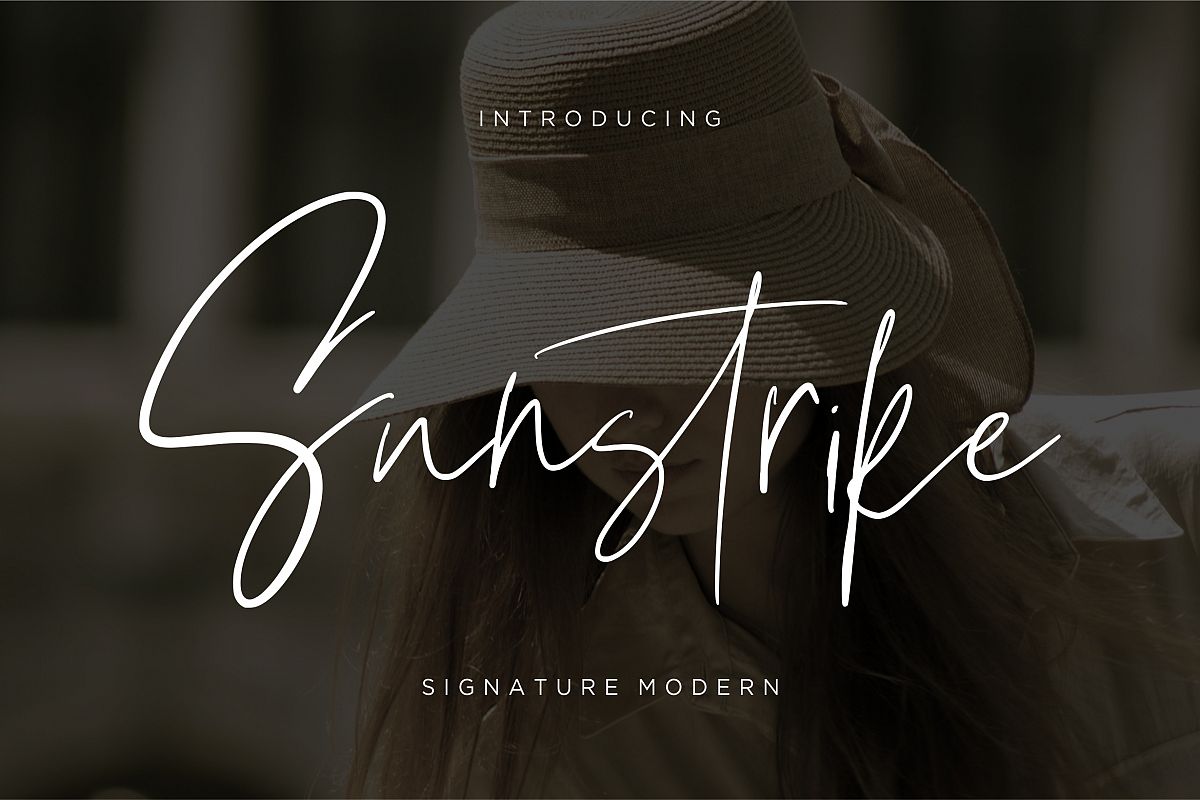
Suntrike Signature Modern
Sunstrike
Suntrike is signature handwriting font with elegant and classy style.
Suntrike is perfect for branding projects, logo, wedding designs, social media posts, advertisements, product packaging, product designs, label, photography, watermark, invitation, stationery and any projects that need handwriting taste.
• Tons of glyphs
• Fonts include multilingual support for; Ã¤ ö ü Ä Ö Ü ß ¿ ¡